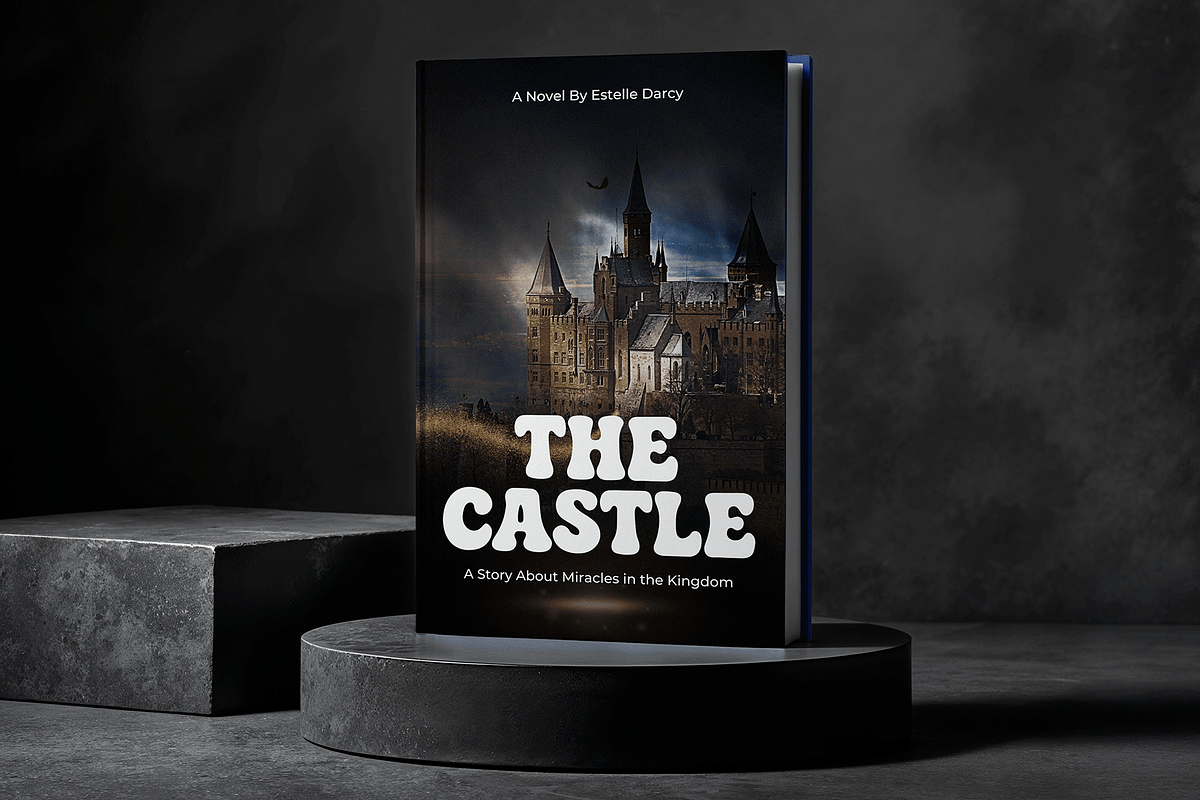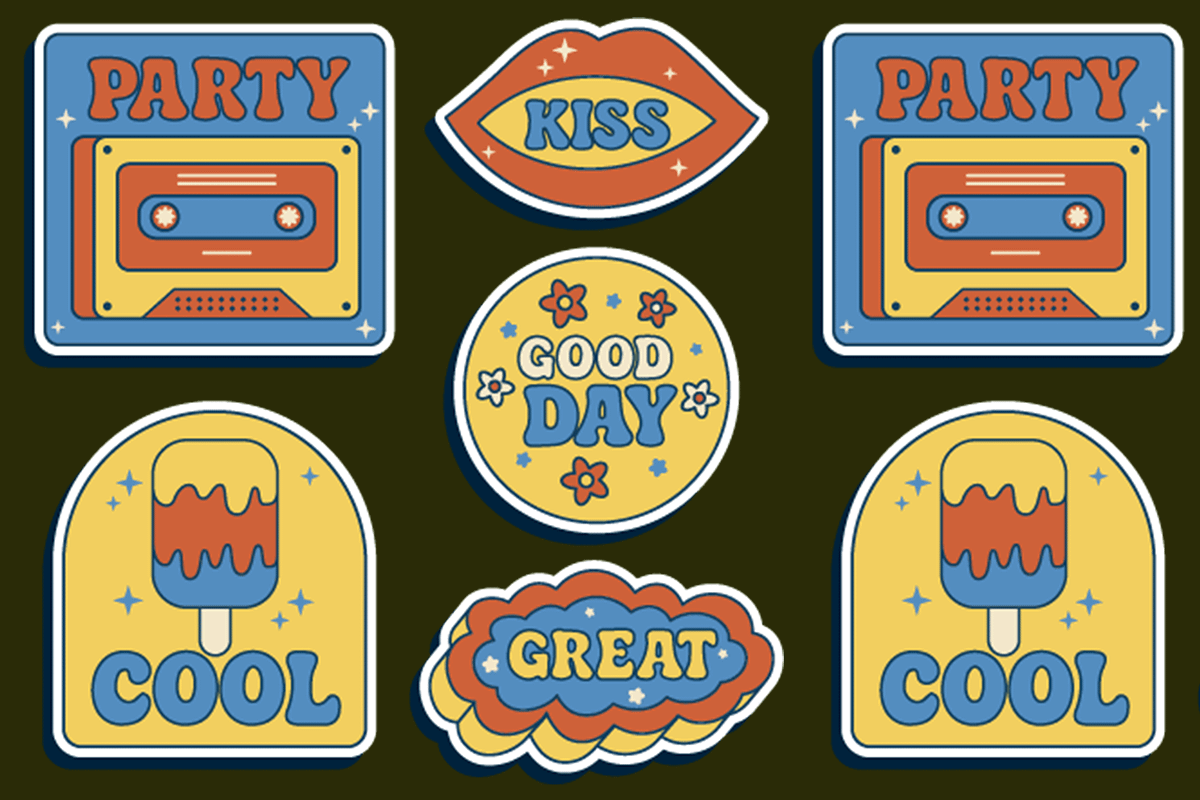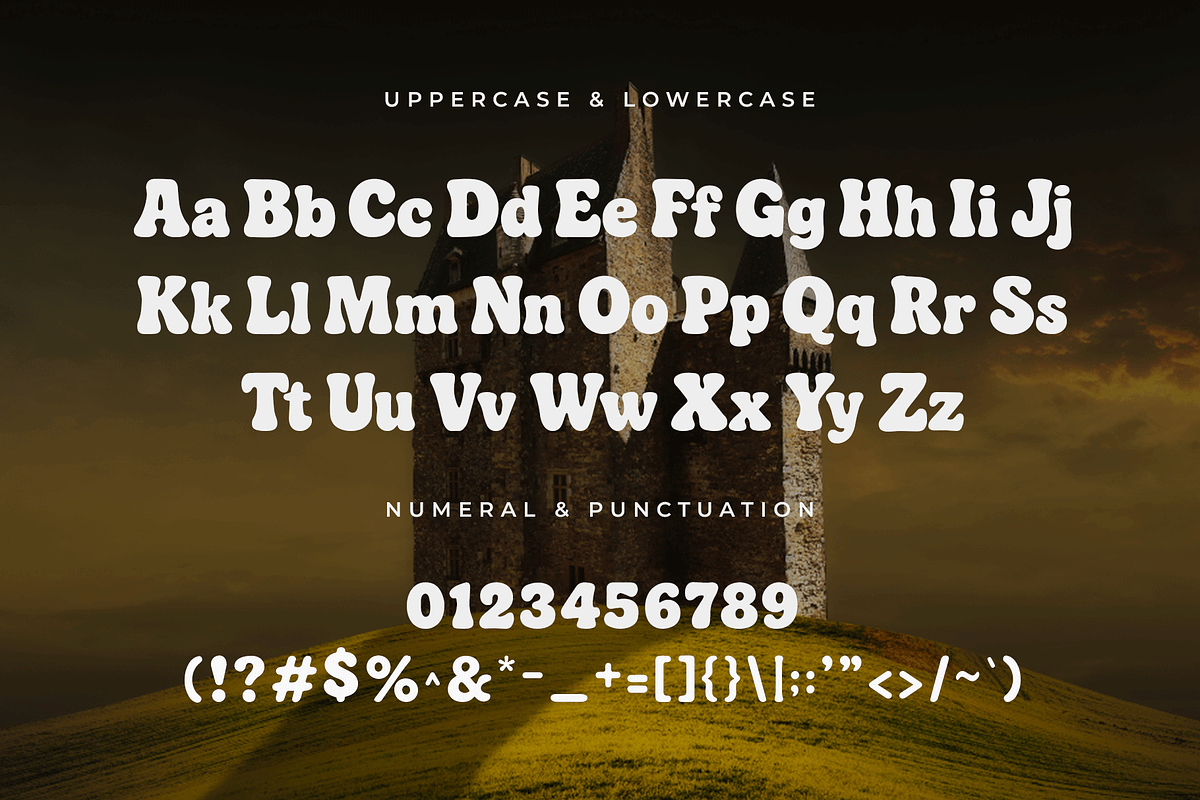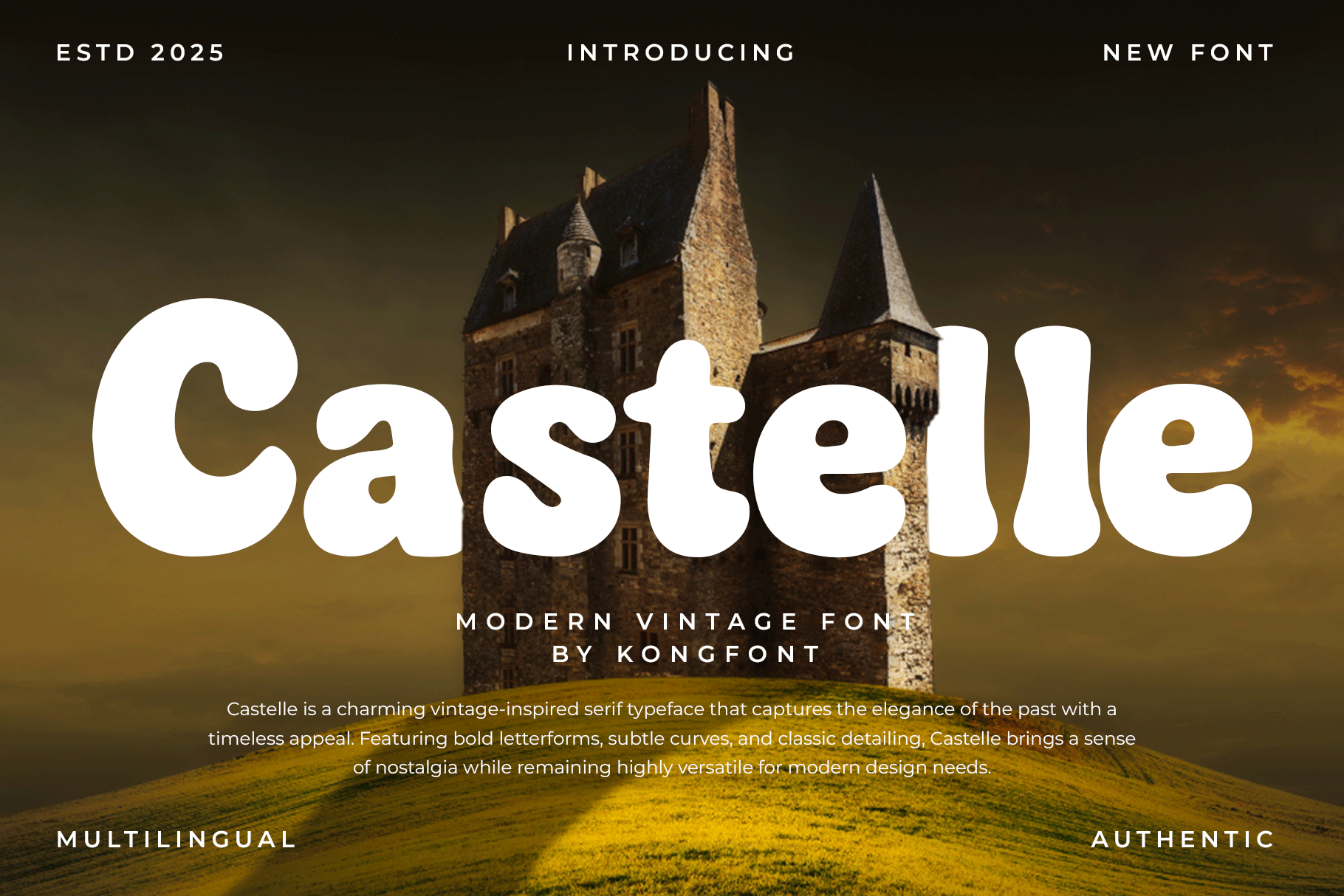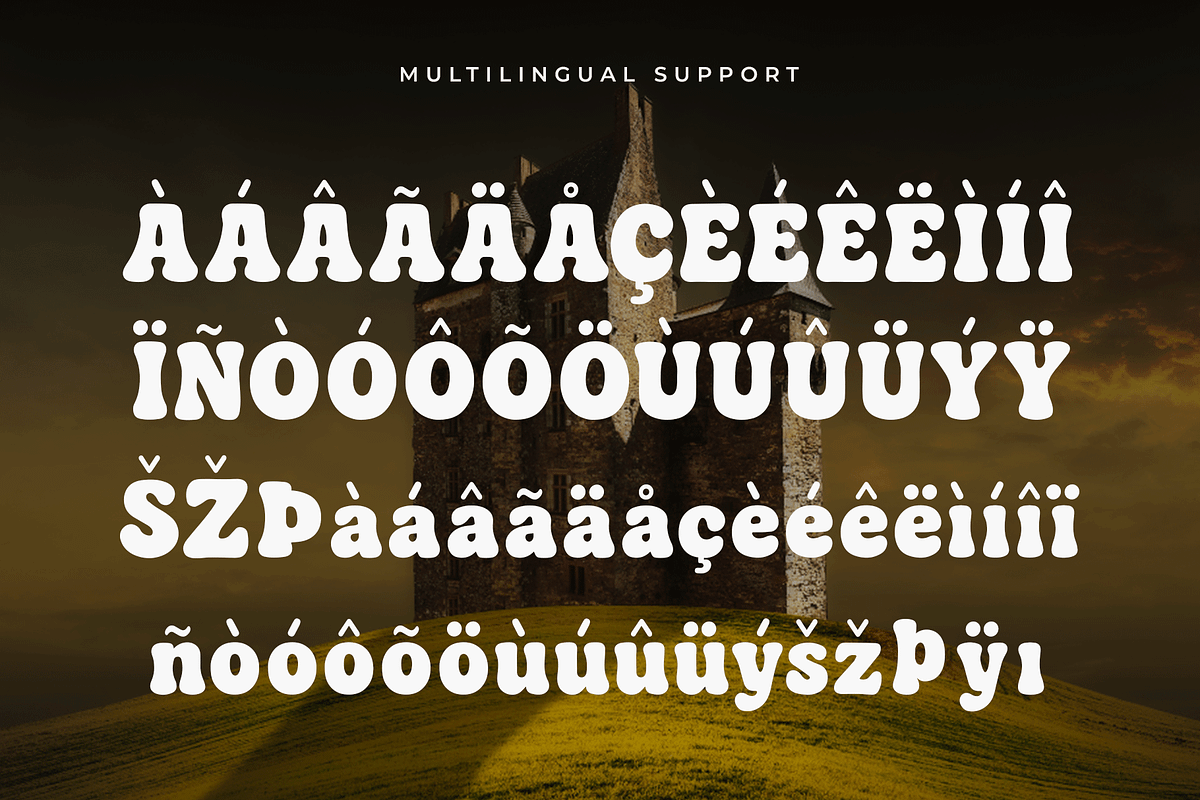
Castelle – Modern Vintage Font
Say hello to Castelle, a modern vintage font that beautifully bridges the gap between classic nostalgia and contemporary style. Inspired by timeless lettering and old-world craftsmanship, Castelle brings a refined retro touch to your modern designs.
With its bold yet elegant letterforms, Castelle is perfect for logos, branding, packaging, posters, and headlines that demand a sense of heritage and sophistication. The font’s balance of smooth curves and sharp edges creates a unique character that feels both nostalgic and fresh.
Designed with versatility in mind, Castelle includes uppercase and lowercase letters, numerals, punctuation, and multilingual support—making it an ideal choice for creatives who appreciate vintage aesthetics with a modern twist.